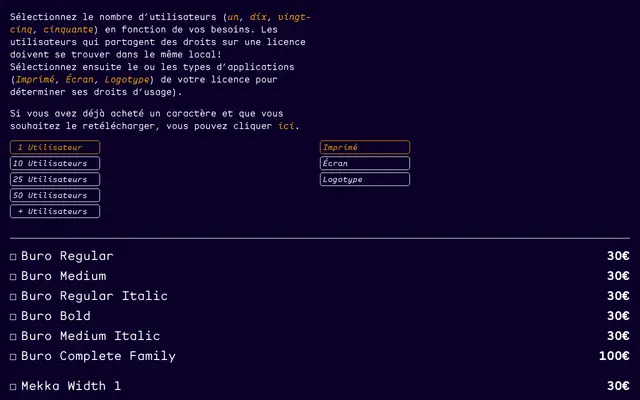
Buro
A three-weight grotesque sans from independent French designer Corentin Noyer, available with matching italics for Regular and Medium.
Offered in Regular, Medium and Bold weights, with italic cuts for the Regular and Medium, Buro is a functional grotesque aimed at editorial and screen use. Sold individually or as a complete family, the licensing model covers print, screen and logotype applications. The foundry operates from France and sells directly through its own shop.
The naming conventions and weight range suggest a workmanlike grotesque or neo-grotesque sans, typical of small independent French foundries producing functional text and display typefaces.